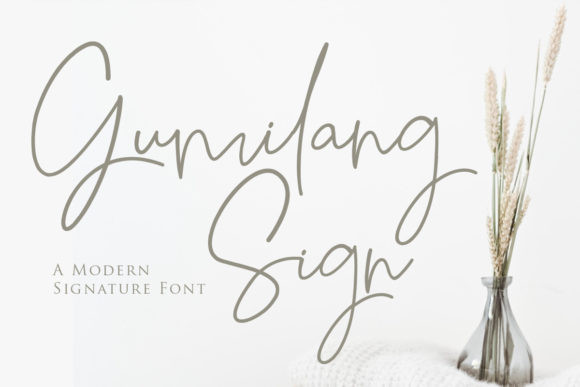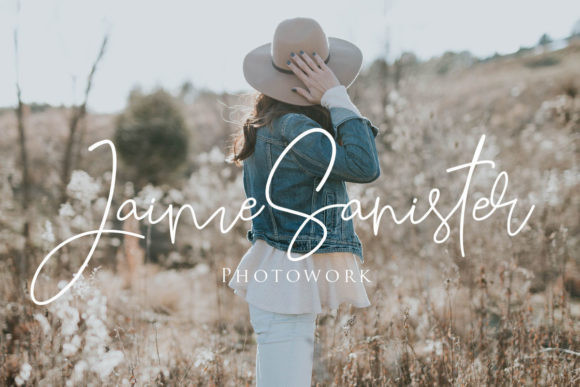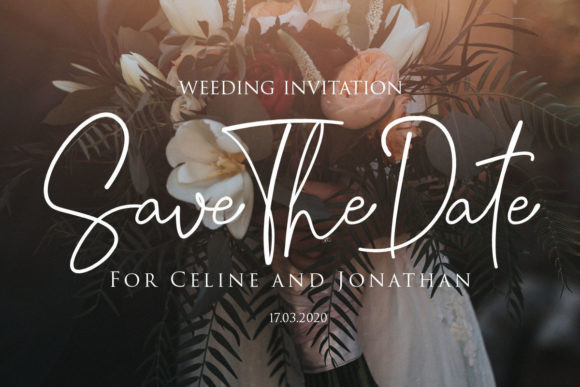
Gumilang Sign Font
Gumilang Sign is a thin and dainty calligraphy typeface with characters that dance along the baseline. It will add a luxury spark to any design project that you wish to create! This font is PUA encoded which means you can access all of the amazing glyphs and ligatures with ease!